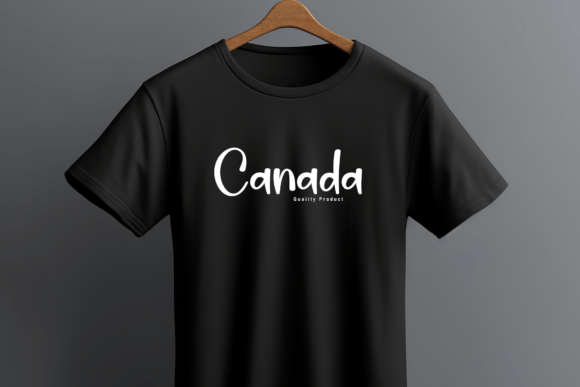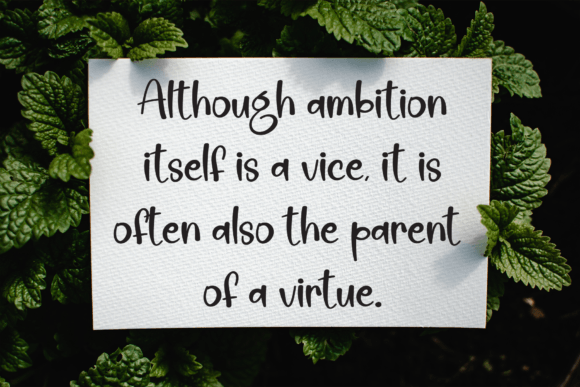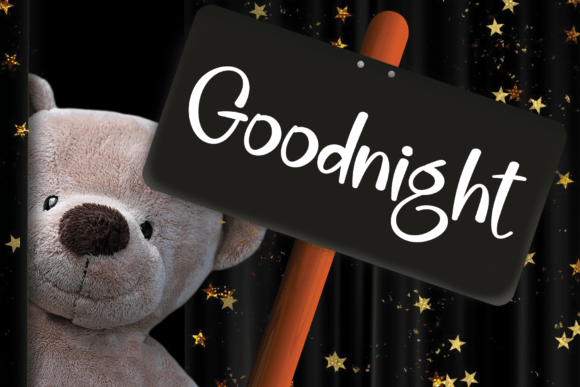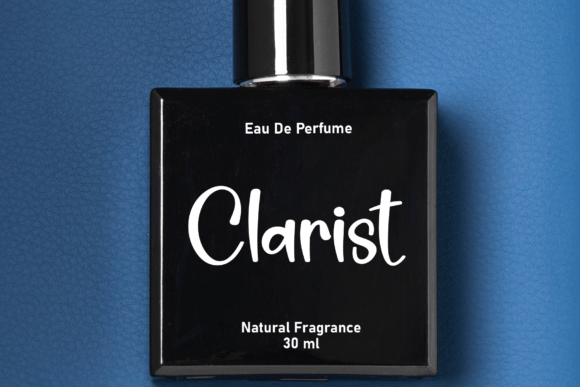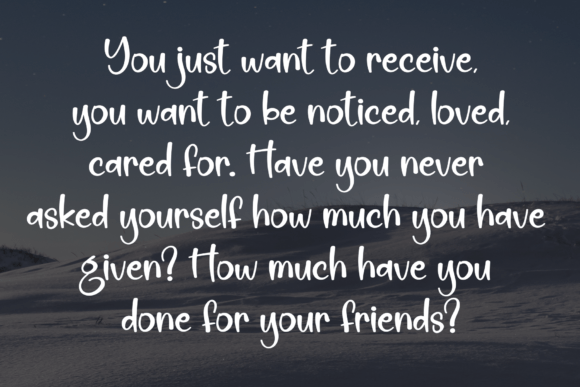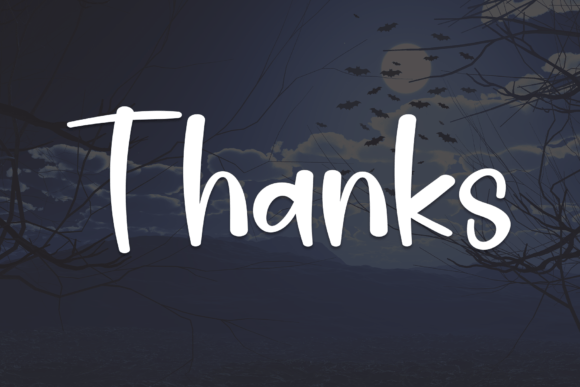
Introduction to Night Angel Font
Have you ever stared at a blank page, your mind racing with ideas for a creative project, but struggling to find the perfect font to bring it to life? For many designers, this is a familiar scenario. That’s where the Night Angel Font comes in – a sweet and friendly handwritten font that’s sure to add a touch of personality to any design.
With its natural and unique style, the Night Angel Font is incredibly versatile and can be used in a wide range of designs, from social media graphics to wedding invitations. Whether you’re working on a high-quality design for a client or a personal project, this font is a valuable resource that can help take your design to the next level.
Key Features of Night Angel Font
- High-quality, hand-drawn design perfect for creative projects requiring a unique touch.
- Includes a large character set, covering a wide range of languages, making it an excellent design resource for global projects.
- Unique, fantasy-inspired design style, ideal for projects that require an otherworldly or mystical feel.
Honest Review: Night Angel Font
One of the standout features of the Night Angel Font is its high-quality design. The font is well-crafted and has a unique, elegant feel to it. I particularly appreciated the fact that it’s available with a transparent background, which makes it easy to customize and integrate into your design.
- Some users may find the font too elegant or formal for certain projects
- Limited character set may make it difficult to use for complex text-based projects
Overall, I’m impressed with the Night Angel Font and would definitely recommend it as a design resource for anyone looking for a high-quality, elegant font. Just be aware of the potential limitations and use it accordingly. ✨
Tips for Getting the Most Out of Night Angel Font
For the best results, use Night Angel Font in conjunction with a high-quality design resource, such as a high-resolution image or a well-designed template. Experiment with different font sizes and styles to add depth and visual interest to your design.
Use Night Angel Font for a variety of creative projects, including logos, social media graphics, and presentations. Its elegant and mysterious design makes it perfect for designs that require a touch of sophistication and glamour.